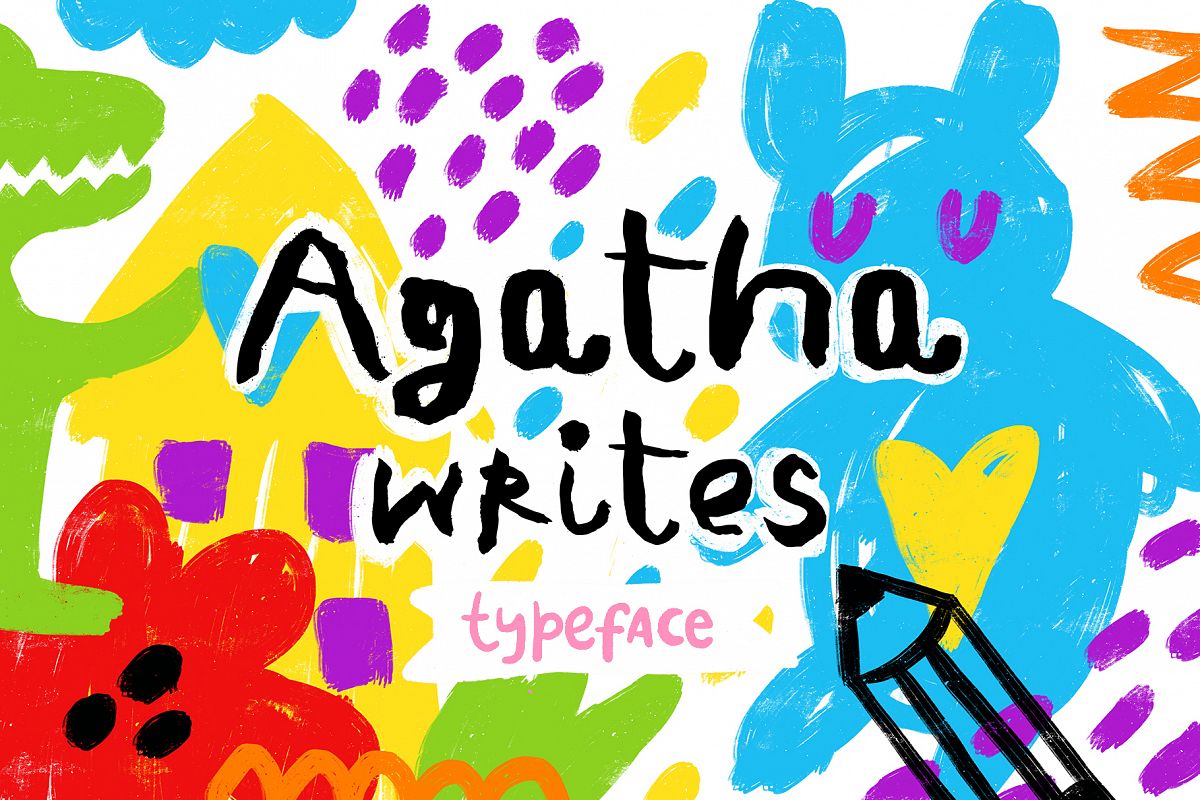
Agatha Writes - Hand Drawn Typeface
? Agatha Writes - Hand Drawn Typeface! ?
This font is drawn manually. He is in a cheerful style, perfect for modern projects. He was painted with a brush and watercolors. It has upper and lower case letters, numbers, special characters, accents, alternates.
This font is perfect for cards, prints, logos, kids projects and decoration.